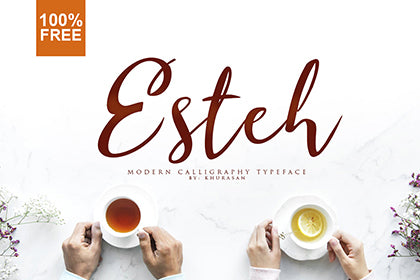
Featuring the eye-watering free esteh script typeface. Free Design Resources has created this amazing and beautiful font. This is absolutely fancy font so you can easily make world-class designs.